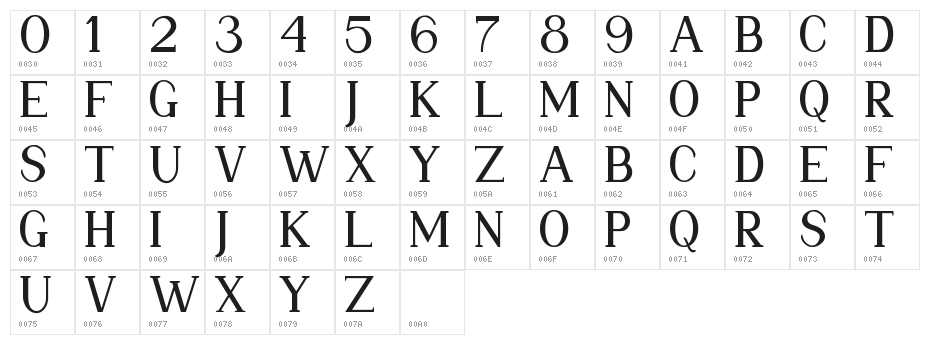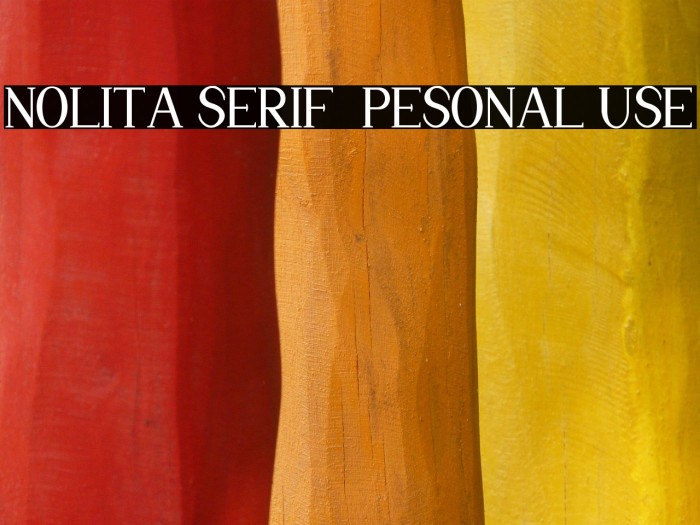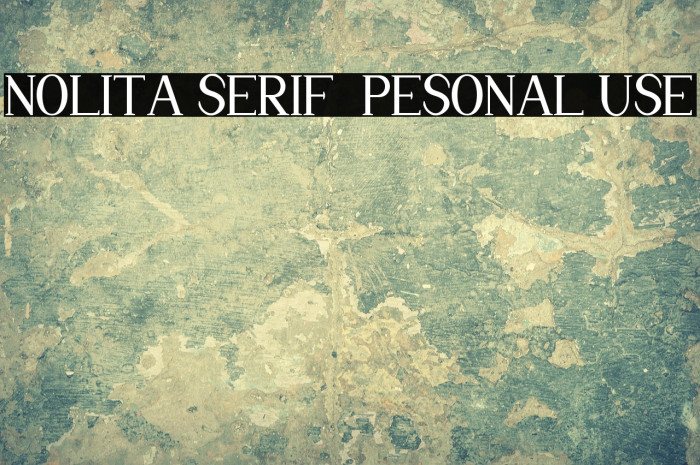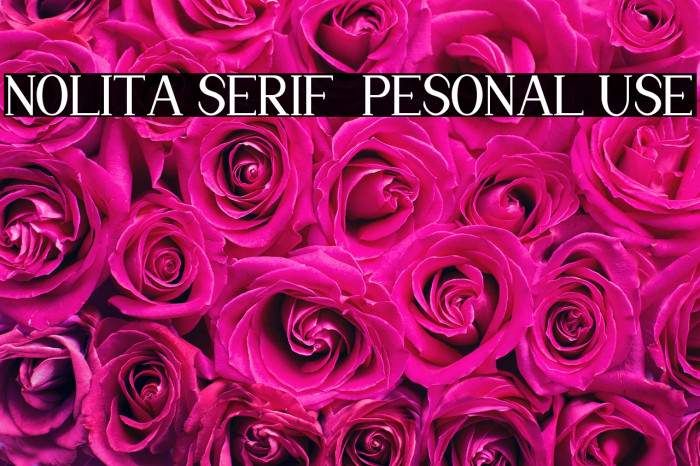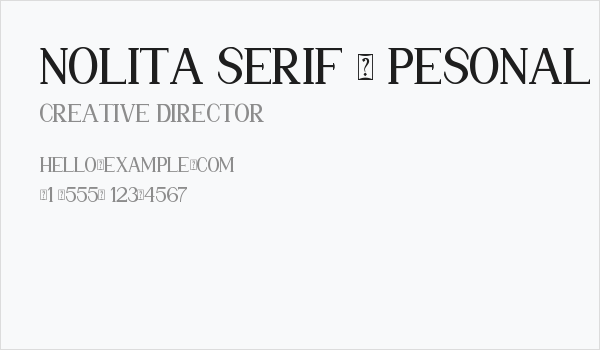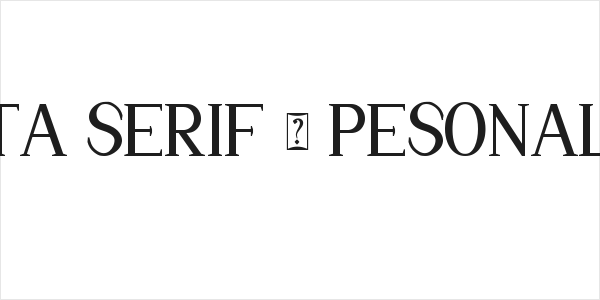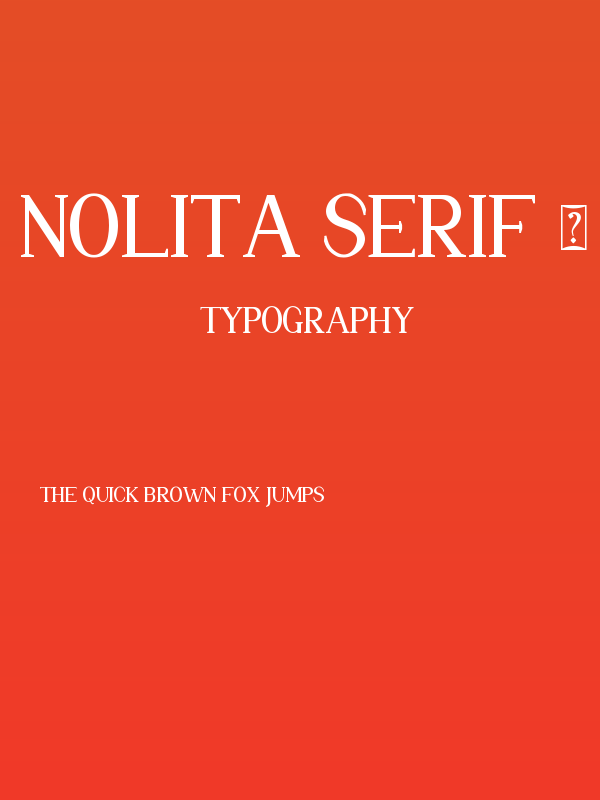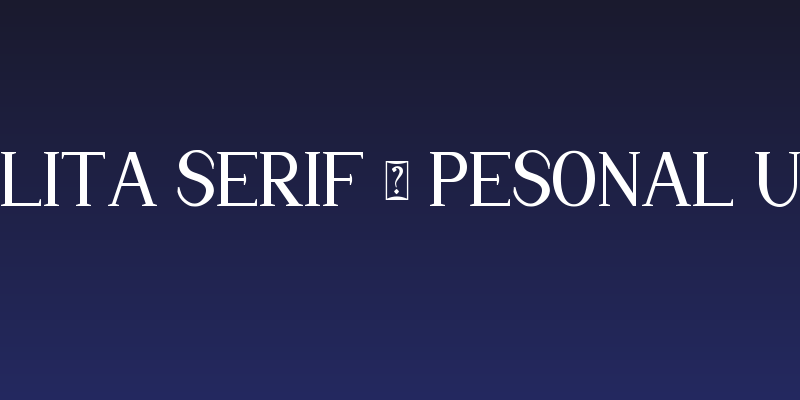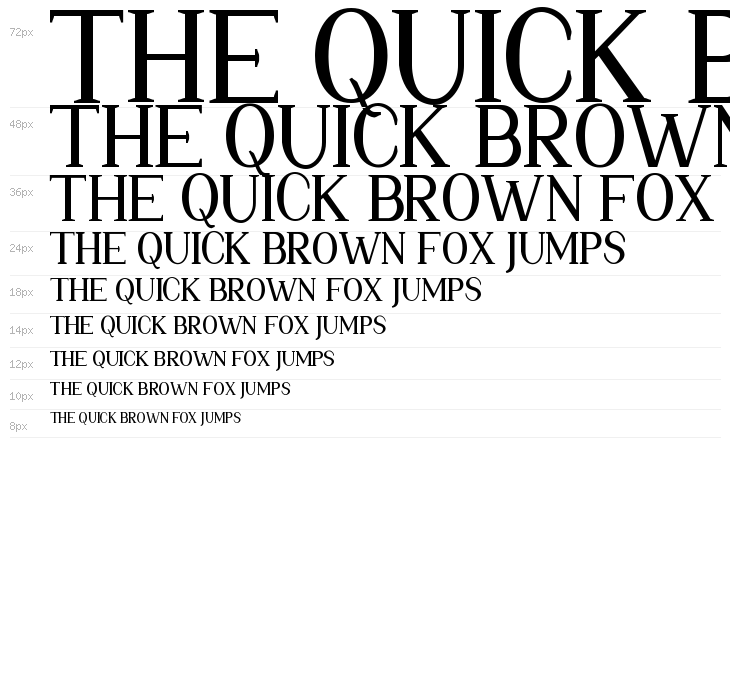
Nolita Serif - Pesonal Use Font
Nolita Serif - Pesonal Use Description
This font features a classic serif style with elegant, elongated strokes and a sophisticated appearance. The uppercase letters are bold and commanding, while the lowercase letters maintain a refined and balanced look. The numerals are clear and distinct, making them suitable for various applications. The font's design incorporates traditional serif elements, providing a timeless and professional feel. The overall aesthetic is both authoritative and approachable, making it versatile for a range of uses.
| Proposed Projects | Ideal for editorial design, book covers, formal invitations, and branding projects that require a touch of elegance and tradition. |